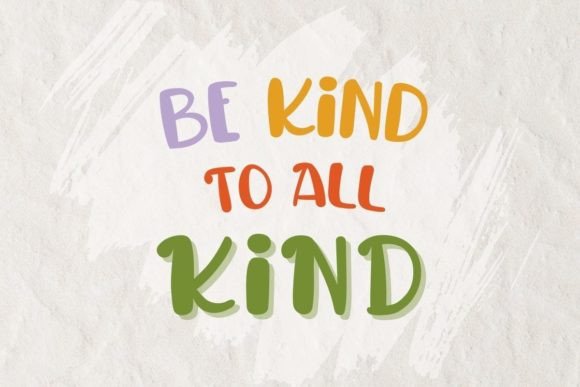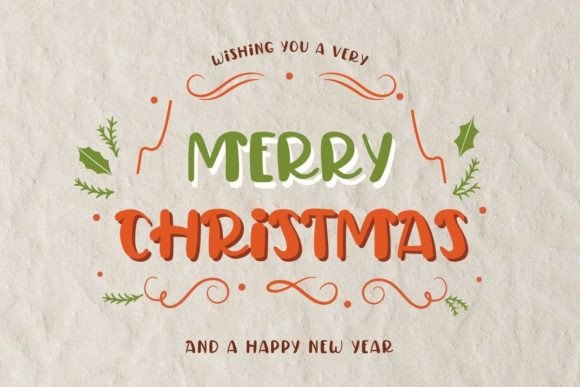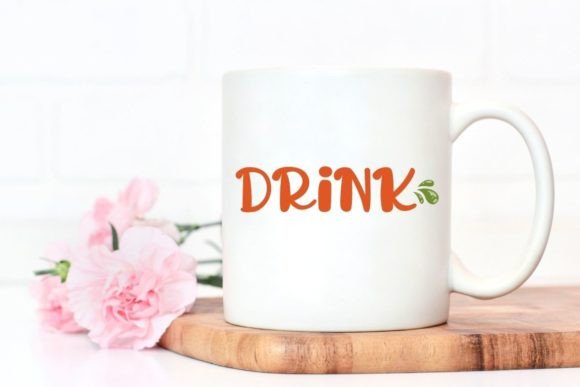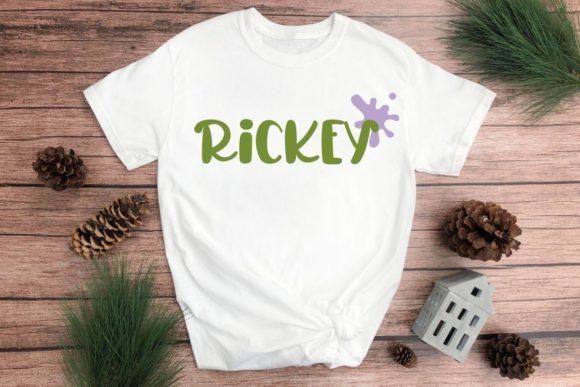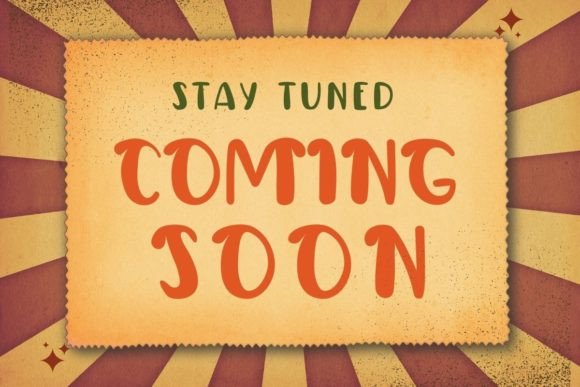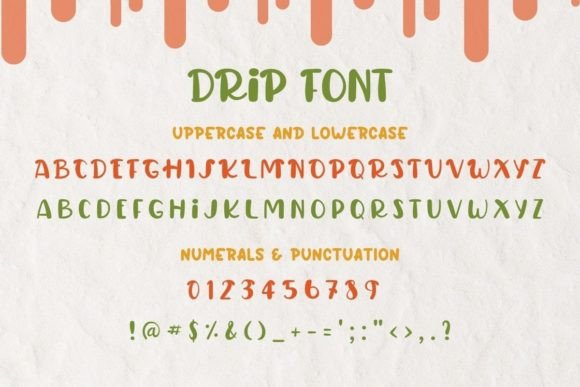
Get Ready to Fall in Love with the Drip Font
Have you ever stared at a blank page, waiting for the perfect font to bring your design to life? We’ve all been there. It’s that moment when you’re searching for the perfect combination of style and personality to make your project truly special. That’s where the Drip Font comes in – a gorgeous handwritten display font that’s sure to capture your heart and elevate your designs.
Whether you’re a seasoned designer or just starting out, the Drip Font is an absolute treasure trove of creative possibilities. With its playful, handcrafted feel, it’s perfect for creating eye-catching banners, social media posts, and even everyday items like mugs and cards. And the best part? It’s incredibly versatile, so you can experiment with different styles and combinations to suit your unique vision.
Drip Font Key Features
- Font Family: Drip Font is a modern, sans-serif font family designed for digital use.
- Character Count: The font family includes over 200 glyphs, providing a wide range of characters for various languages and applications.
- Unique Characteristics: The font features a unique blend of geometric and organic shapes, creating a distinctive and modern aesthetic.
Drip Font Review
Overall, I’d say the Drip Font is a decent addition to any design project. It’s versatile, yet maintains a cohesive aesthetic. Here’s what I think works well:
- ✨ Unique, yet familiar: The font’s design is bold and eye-catching, making it perfect for headlines or titles.
- ✨ Wide range of applications: From branding to web design, Drip Font is suitable for various projects due to its adaptability.
- ✨ Easy to read: The font’s clear structure ensures that the text remains readable even at smaller font sizes.
However, there are some limitations:
- ⚠️ Limited expressiveness: While the font is great for headlines, it may lack the nuance and personality required for more in-depth or narrative content.
- ⚠️ Not ideal for body text: Due to its bold nature, Drip Font may become overwhelming when used extensively throughout a text.
Overall, the Drip Font is a solid choice for designers looking for a striking and adaptable font. Its limitations are worth considering, but it’s a great option for projects where you need a font that packs a punch.
Tips for Getting the Most Out of Drip Font
Here are some tips for getting the most out of the Drip Font:
- Use the Drip Font for headings and titles to add a touch of elegance and sophistication.
- Experiment with different font sizes and colors to create a unique and eye-catching design.
- Combine the Drip Font with other fonts and design elements to create a cohesive and visually appealing design.
Alternatives to Drip Font
Great Vibes is a modern, elegant script font that is ideal for creative projects, such as invitations, posters, and logos. It is similar to Drip Font in its fluid, handwritten feel, but has a more refined and sophisticated appearance.
Comparison: While Drip Font has a more playful, casual vibe, Great Vibes is more polished and suitable for formal or professional designs.
Alex Brush is a beautiful, cursive script font that is perfect for projects that require a touch of elegance and sophistication. It is similar to Drip Font in its flowing, handwritten feel, but has a more refined and luxurious appearance.
Comparison: While Drip Font is more casual and playful, Alex Brush is more formal and suitable for high-end designs, such as wedding invitations or luxury branding.
Pacifico is a beautiful, elegant script font that is inspired by the Pacific coast of Mexico. It is similar to Drip Font in its fluid, handwritten feel, but has a more relaxed and beachy vibe.